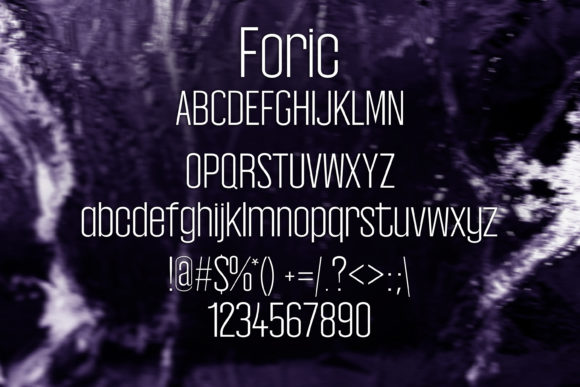
The Foric Font: A Cool and Smart Sans Serif to Elevate Your Designs
I’ll never forget the time I was working on a branding project for a trendy new coffee shop. I had spent hours agonizing over the perfect color palette and logo design, but something was still missing. That’s when I realized I needed a font that would capture the shop’s fun and modern vibe. After scouring the internet, I stumbled upon the Foric font, and it instantly became the perfect fit. In this article, I’ll share my experience with Foric, its unique features, and how to make the most of it in your designs.
An Honest Review of Foric Font
What I Love About Foric ✨
- ✅ Unique and modern sans serif design that stands out from the crowd
- ✅ Clean lines and geometric shapes that convey a sense of sophistication
- ✅ Extensive character set, including support for multiple languages
- ⚠️ Some users may find the font too minimalist or lacking in personality
- ⚠️ Limited availability of stylistic alternates, which may limit creative options
Foric font comes with a range of OpenType features and glyphs that can enhance your designs. Here are a few examples:
- Ligatures: Foric font includes ligatures that can be used to create a more fluid and natural look
- Stylistic alternates: While limited, Foric font does offer some stylistic alternates that can add visual interest to your designs
- Glyphs: Foric font includes a range of glyphs, including currency symbols, mathematical operators, and more
The Story Behind Foric Font
Foric font was designed with the goal of creating a modern and versatile sans serif font that could be used for a wide range of design projects. The designer, inspired by the geometric shapes and clean lines of modern architecture, aimed to create a font that was both elegant and legible. With its unique style and extensive character set, Foric font has become a popular choice among designers and crafters.
Q: What is the personality of Foric font?
A: Foric font has a modern and sophisticated personality, making it perfect for designs that require a clean and elegant look.
Q: Is Foric font suitable for body text?
A: Yes, Foric font is highly legible and can be used for body text. However, it’s recommended to use a font size of at least 14px to ensure optimal readability.